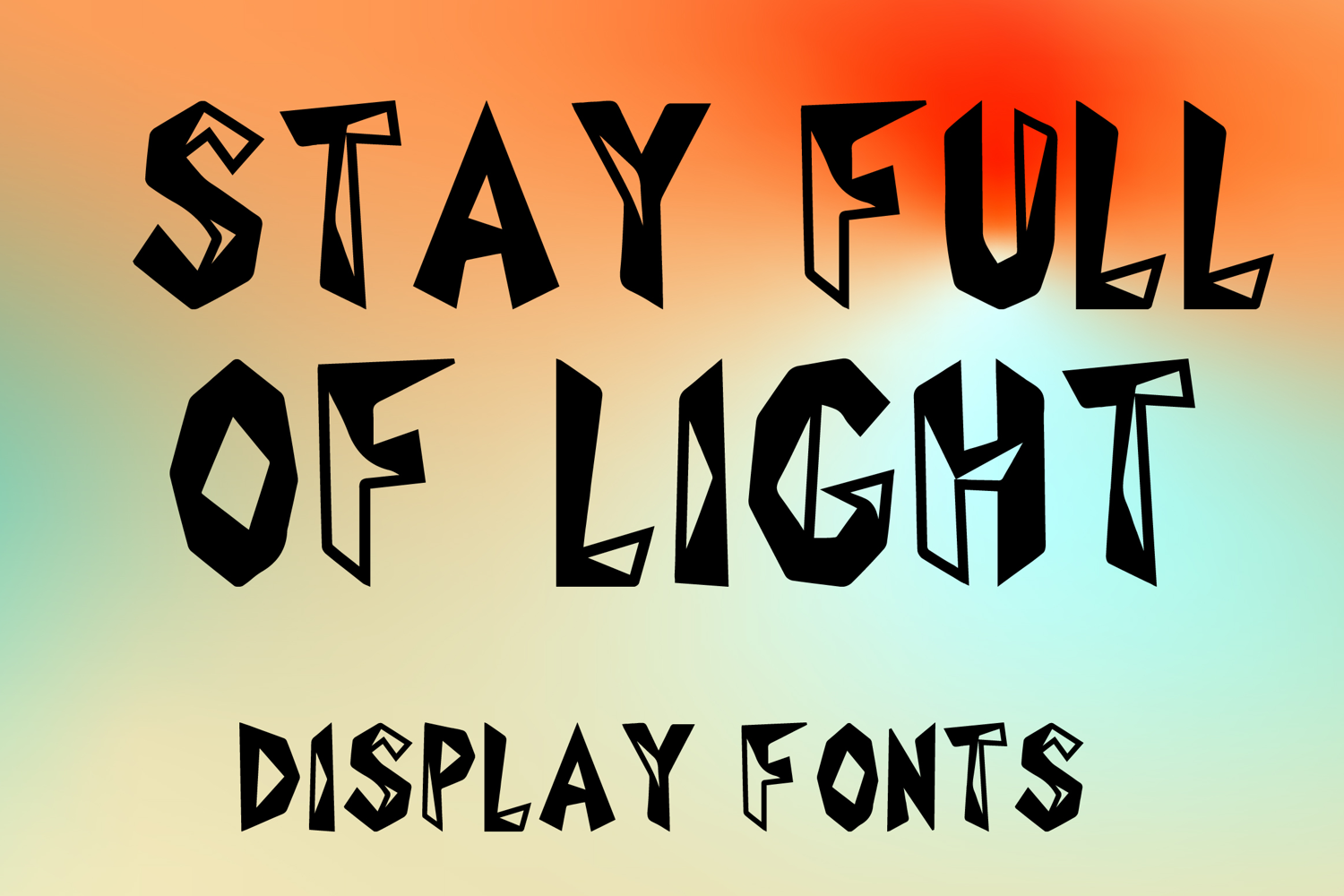
STAY FULL OF LIGHT
STAY FULL OF LIGHT is a bold decorative display font with a sharp geometric style and dramatic handcrafted character. Its uppercase letterforms feature tall angular shapes, pointed cuts, and striking faceted details that create a powerful, edgy, and eye-catching look. Designed with uppercase letters A–Z and numbers 0–9, STAY FULL OF LIGHT is perfect for branding, posters, packaging, logos, headlines, social media graphics, and creative projects that need a strong and memorable statement.